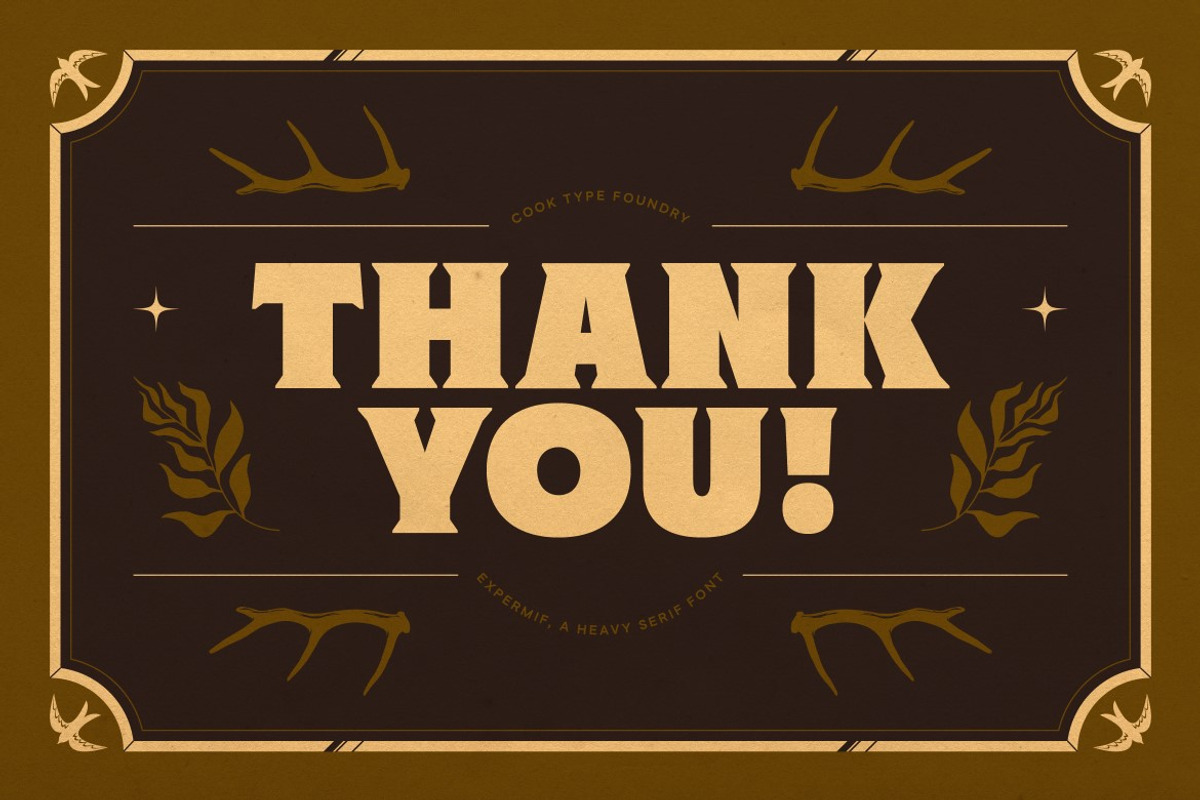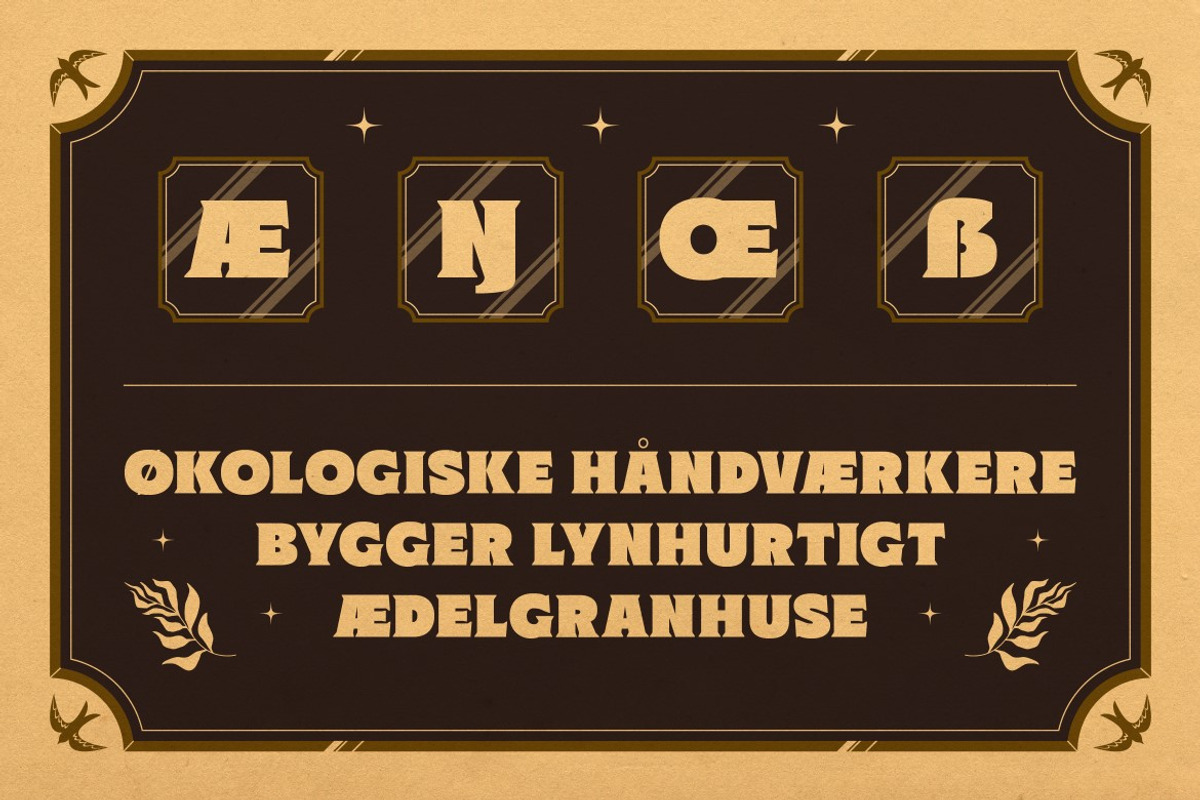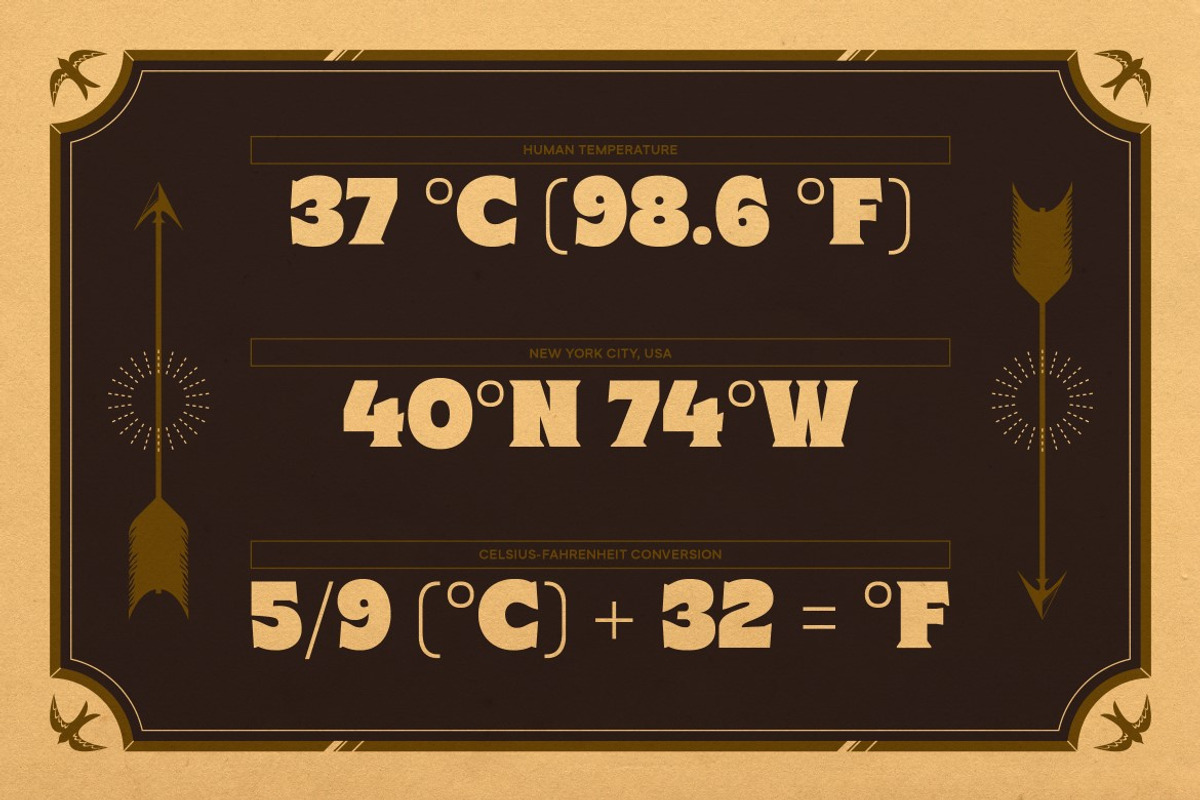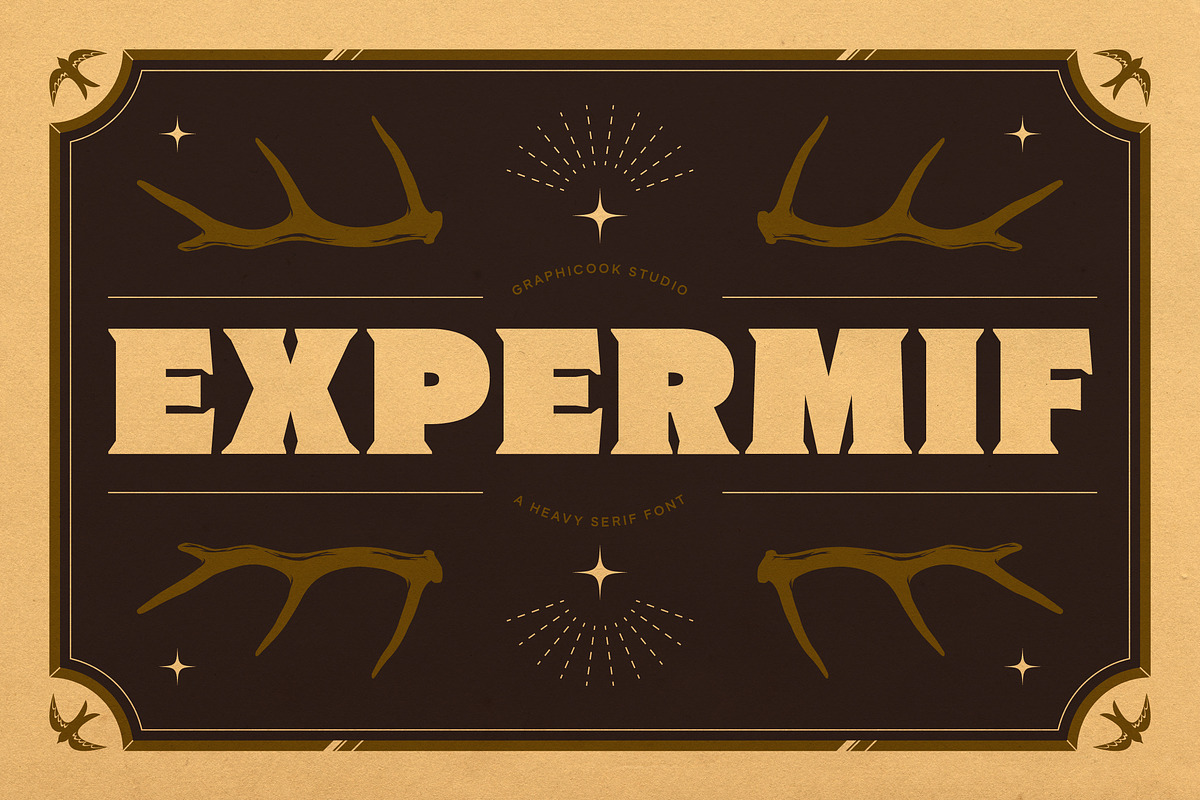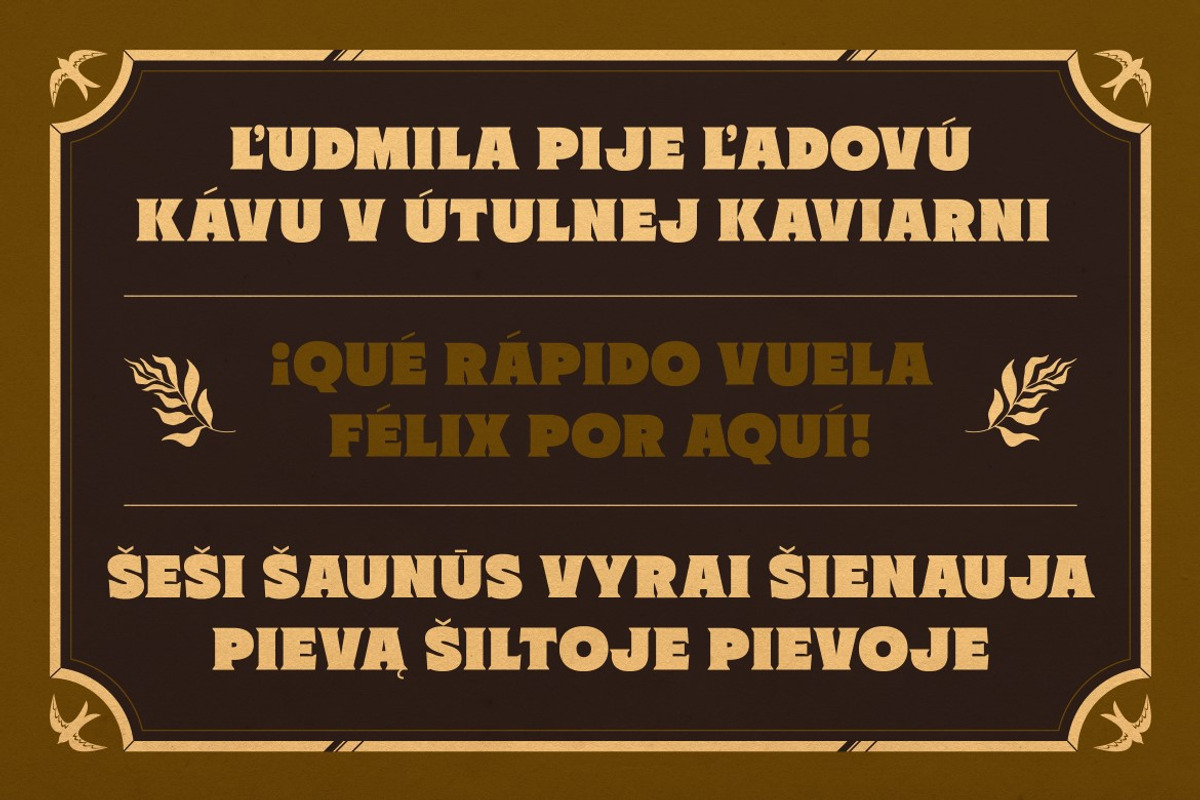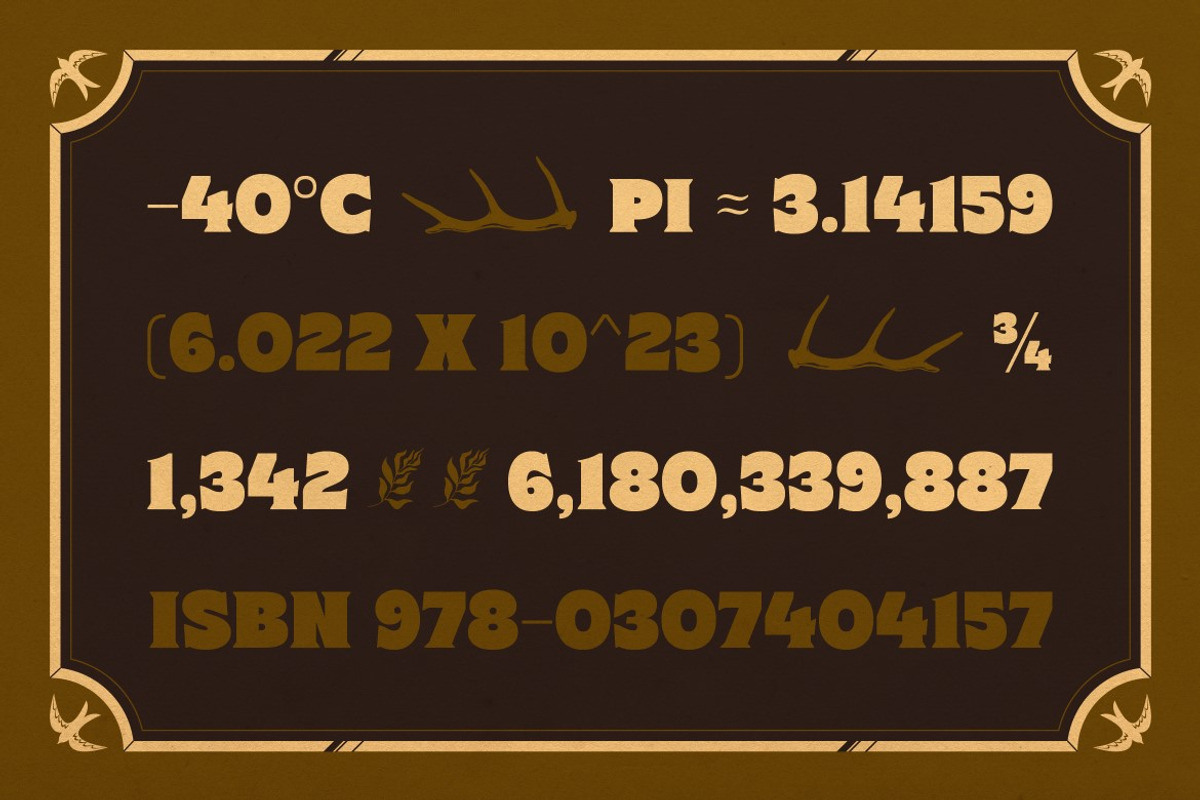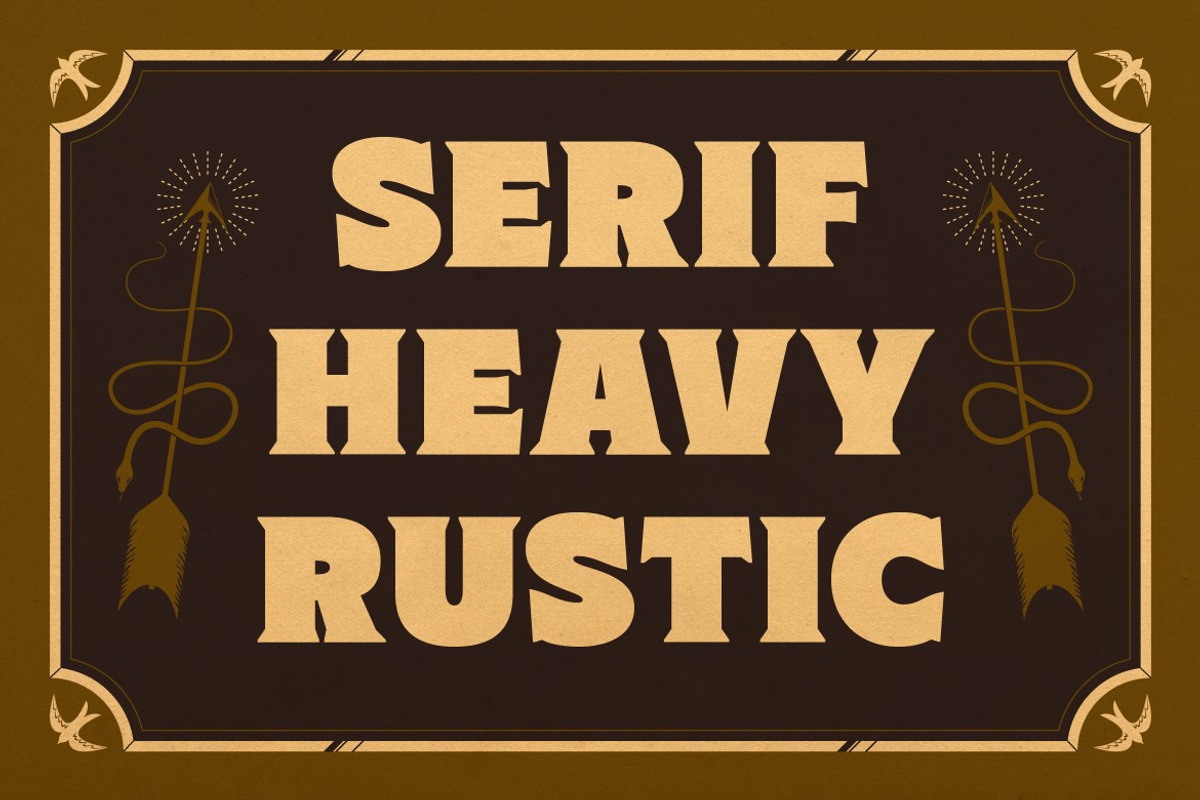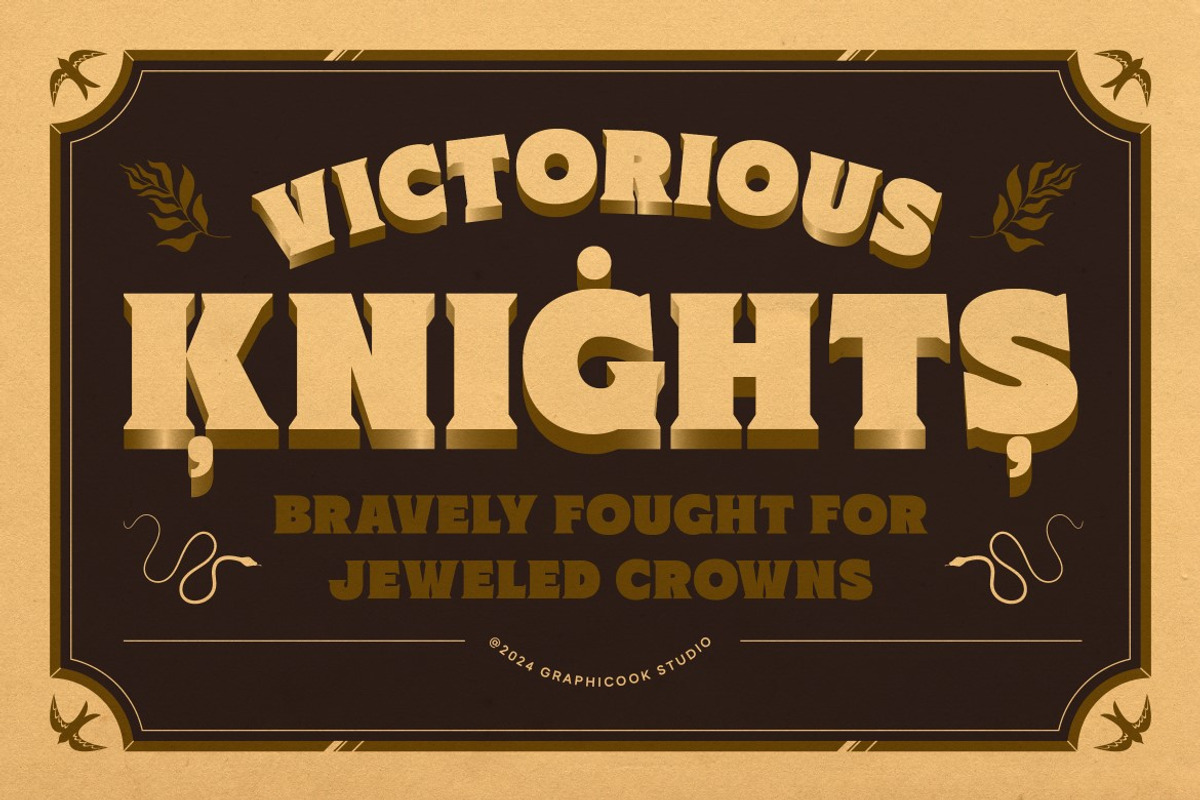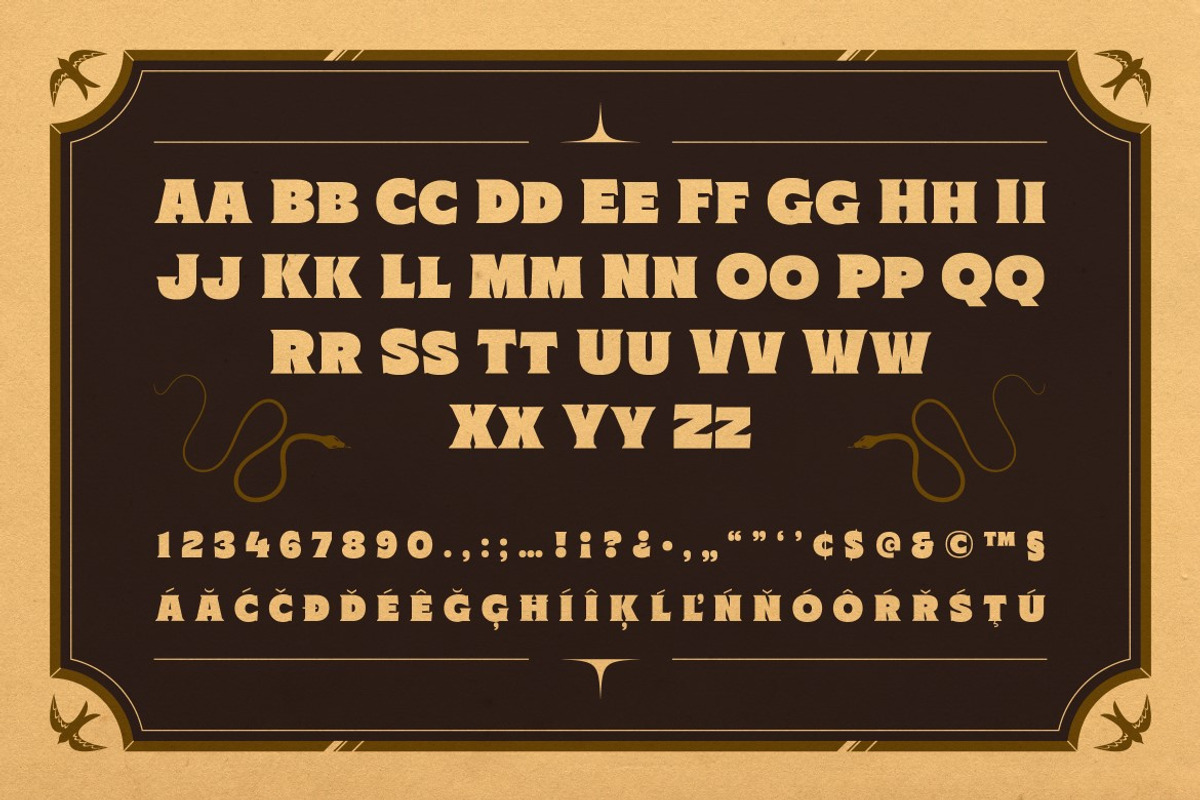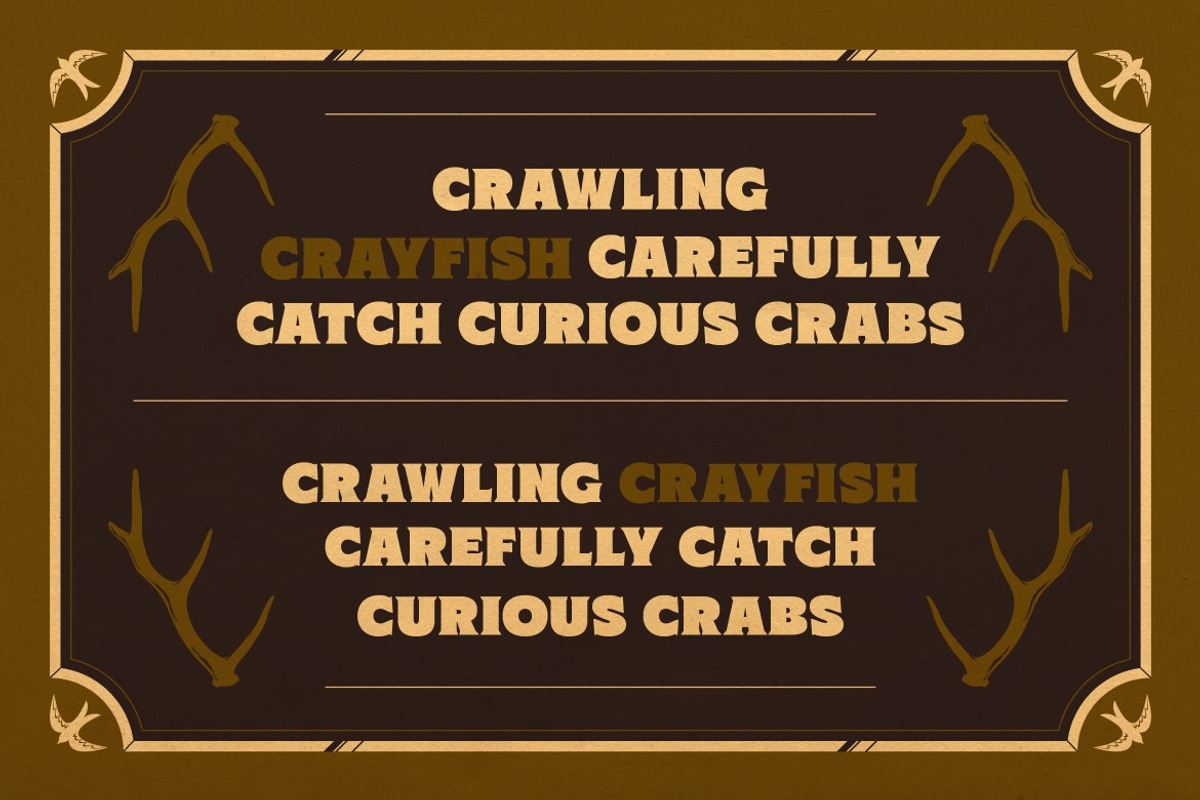
Expermif
Meet Expermif Typeface, a heavy serif font with vintage and rustic charm, perfect for all your vintage artworks.
Expermif is perfect for headlines, logotypes, magazines, packaging, quotes, movies, games, cover albums, book covers, and flyers, it's a perfect solution for creating eye-catching designs that stand out in any context.